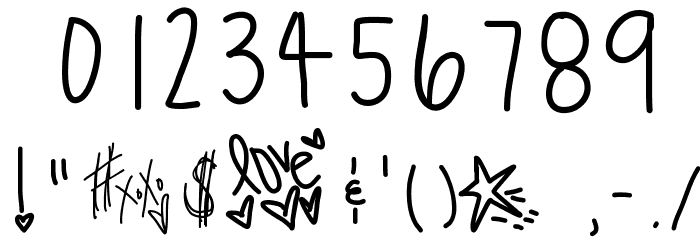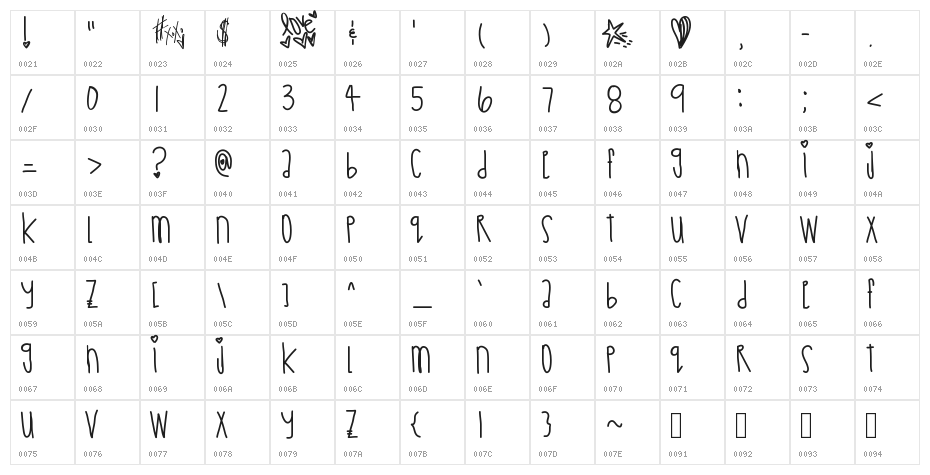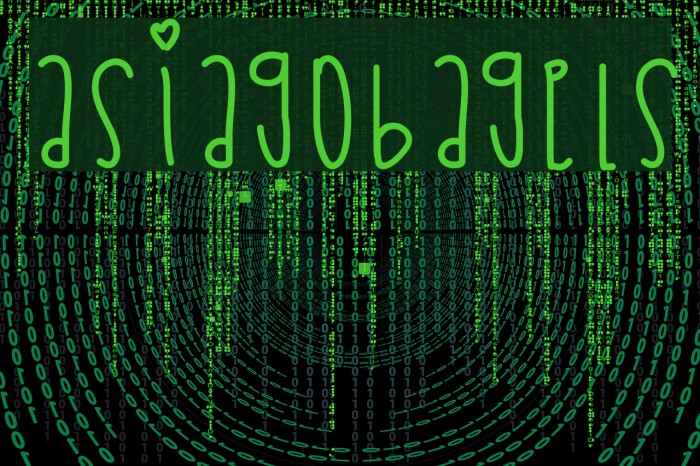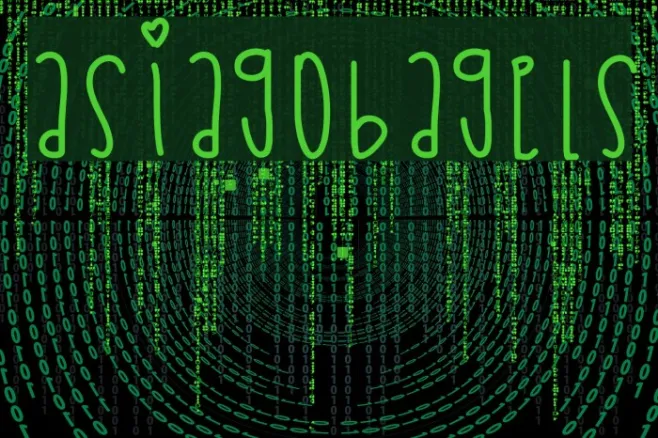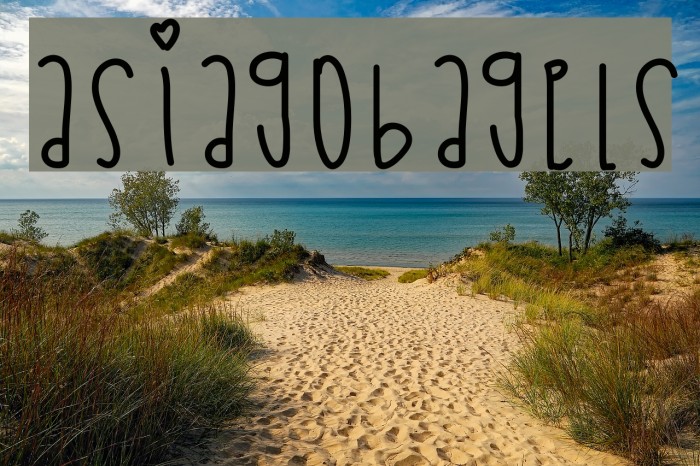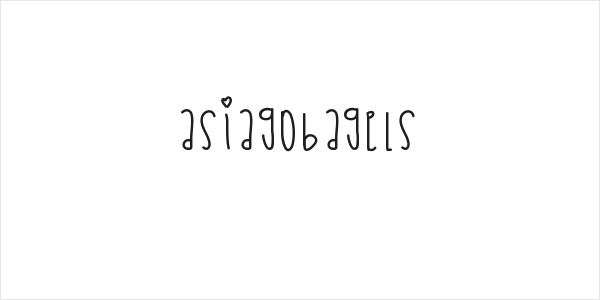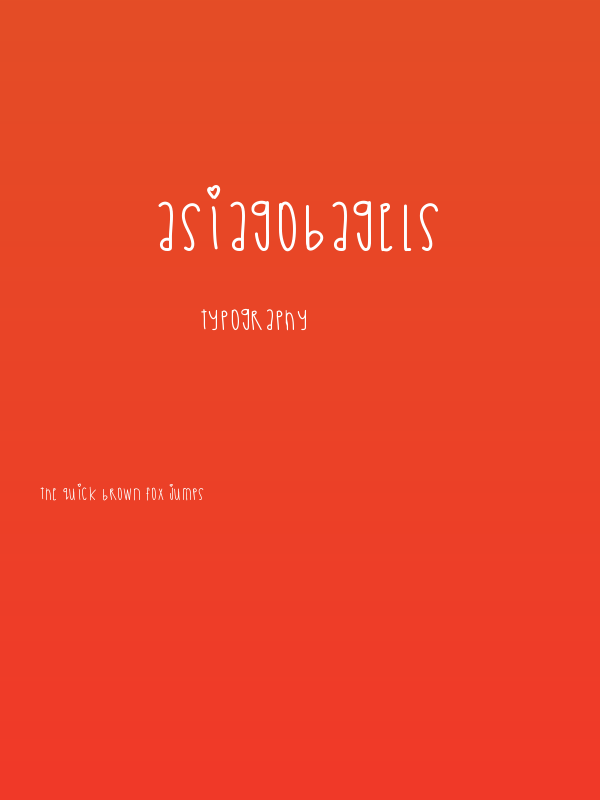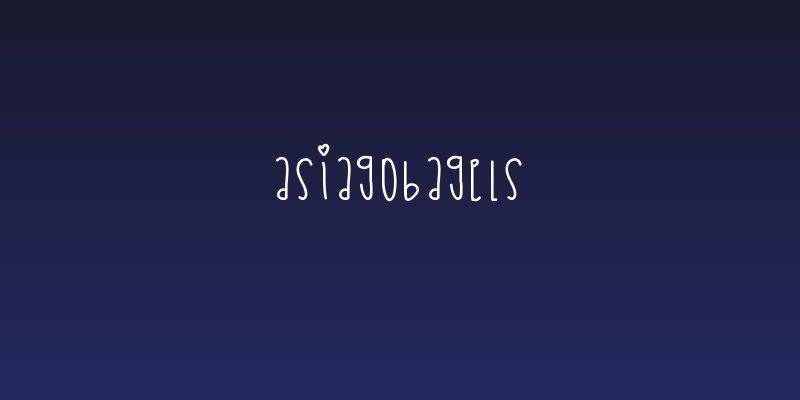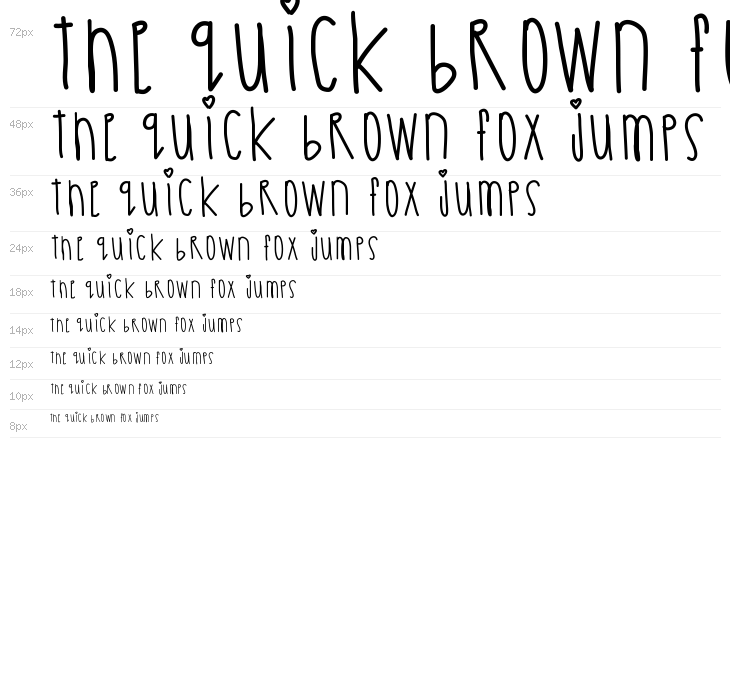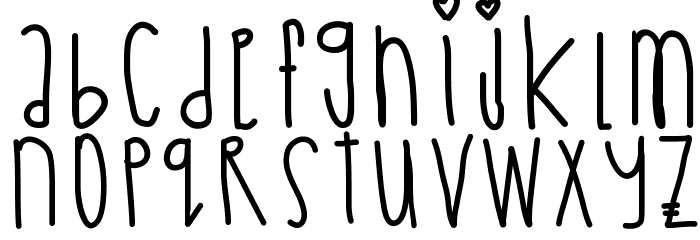
AsiagoBagels Font
AsiagoBagels Description
This playful and whimsical font features a handwritten style with a casual and friendly appearance. The characters are tall and narrow, with a slight tilt that adds to their charm. The strokes are consistent in width, giving the font a uniform look, while the rounded edges soften the overall feel. Special characters include hearts and stars, enhancing its playful nature. The font is well-suited for creative projects that require a personal touch, such as greeting cards, children's books, or playful branding materials.
| Overall Style | Whimsical |
| Proposed Projects | Ideal for greeting cards, children's books, playful branding, and creative projects. |